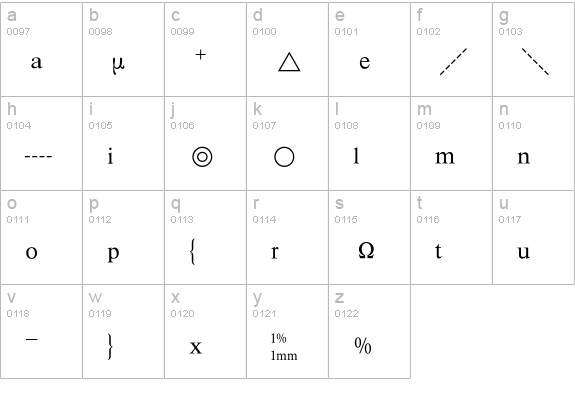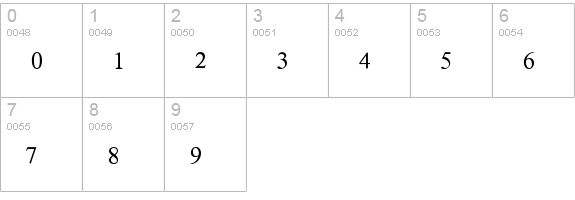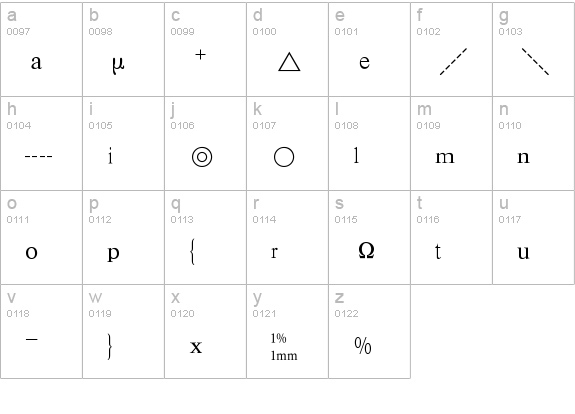
Chem Formeln font is a versatile and modern typeface designed for scientific and mathematical applications. With its clean lines and geometric shapes, this font is perfect for creating equations, formulas, and scientific notations with clarity and precision. The unique design of Chem Formeln font makes it stand out in technical documents, research papers, and educational materials. What sets Chem Formeln font apart is that it is available for free download at FontsMarket.com. This means that anyone can access and use this high-quality font without any cost. Whether you are a student, researcher, or professional in the field of science, Chem Formeln font is a valuable tool that can enhance the visual presentation of your work. Download Chem Formeln font today from FontsMarket.com and elevate your scientific and mathematical documents with this sleek and professional typeface.